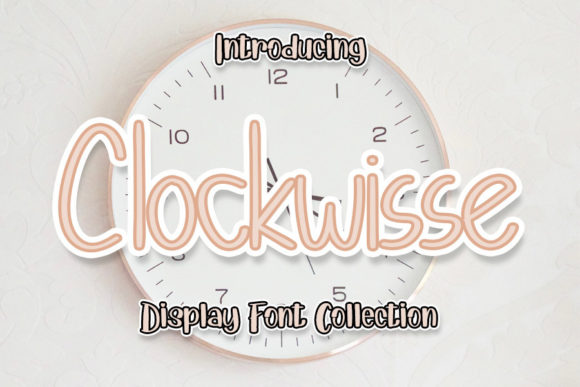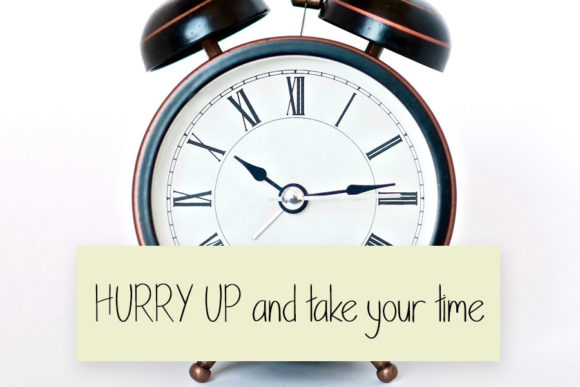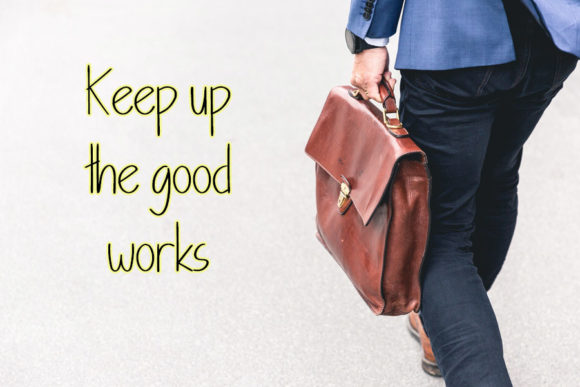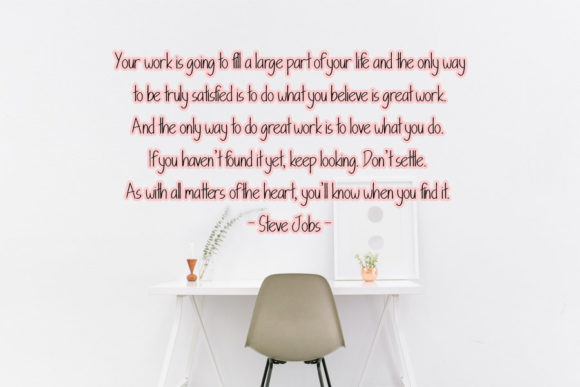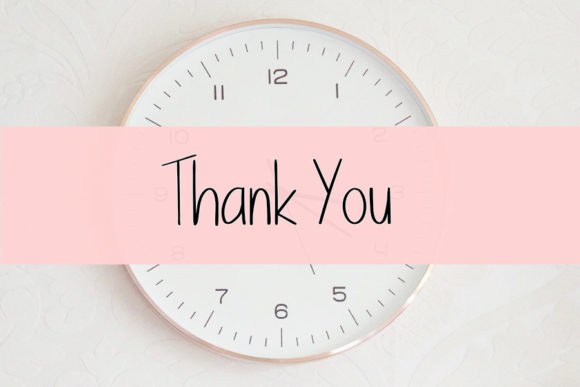
Clockwisse Font
About Clockwisse Font
Clockwisse is a simple and playful handwritten font that adds a delightful touch to any design. With its joyful and bright demeanor, this font has the power to bring your creations to life!
The simplicity of Clockwisse is what makes it so versatile. It’s effortlessly legible and works well in various design contexts. Whether you’re crafting a logo, designing a poster, or creating personalized stationery, Clockwisse will effortlessly enhance your visual compositions.
This font exudes a playful energy that captures attention and brings a sense of liveliness to your projects. Its handwritten style adds a touch of personality and charm, making it ideal for anything from children’s books to cheerful branding campaigns.
With Clockwisse, your designs will sparkle with creativity and optimism. Each letter dances on the page, creating a sense of movement and vibrancy. It’s a font that invites smiles and evokes a sense of joy in the viewer.
So, embrace the whimsical nature of Clockwisse and infuse your designs with its playful spirit. Watch as each stroke brings your creations to life and captures the hearts of those who see them. Let Clockwisse be the catalyst for boundless inspiration and endless creative possibilities.